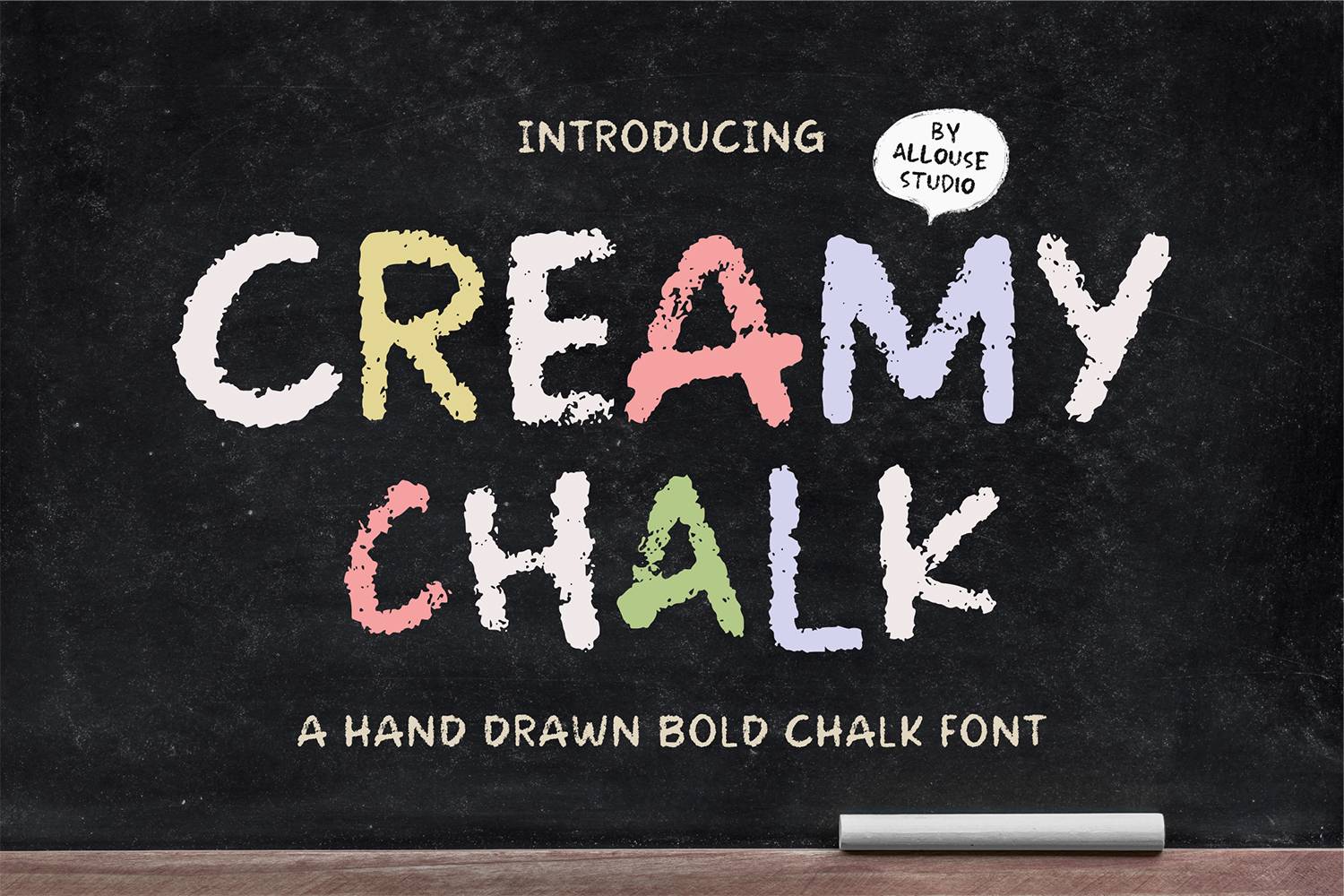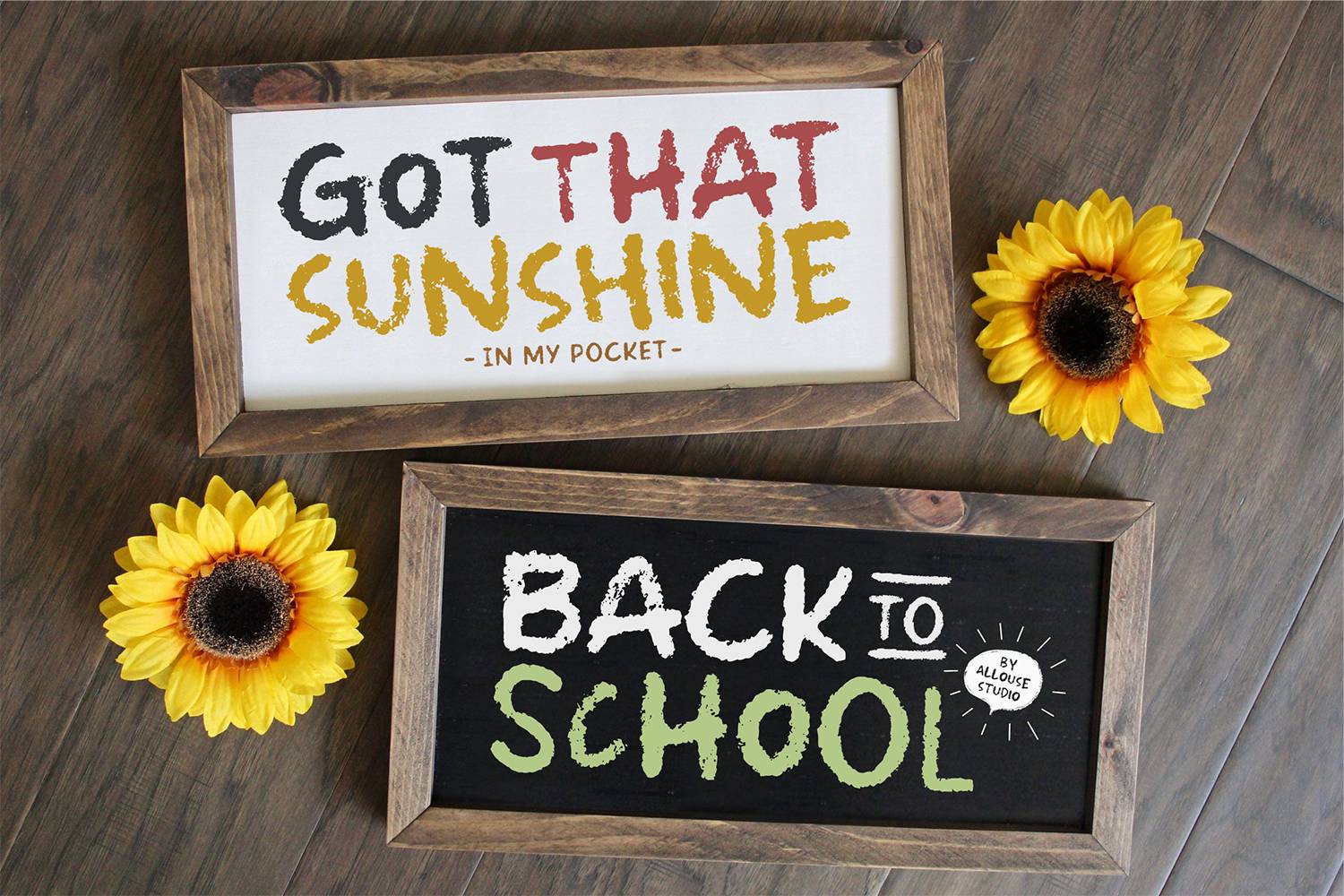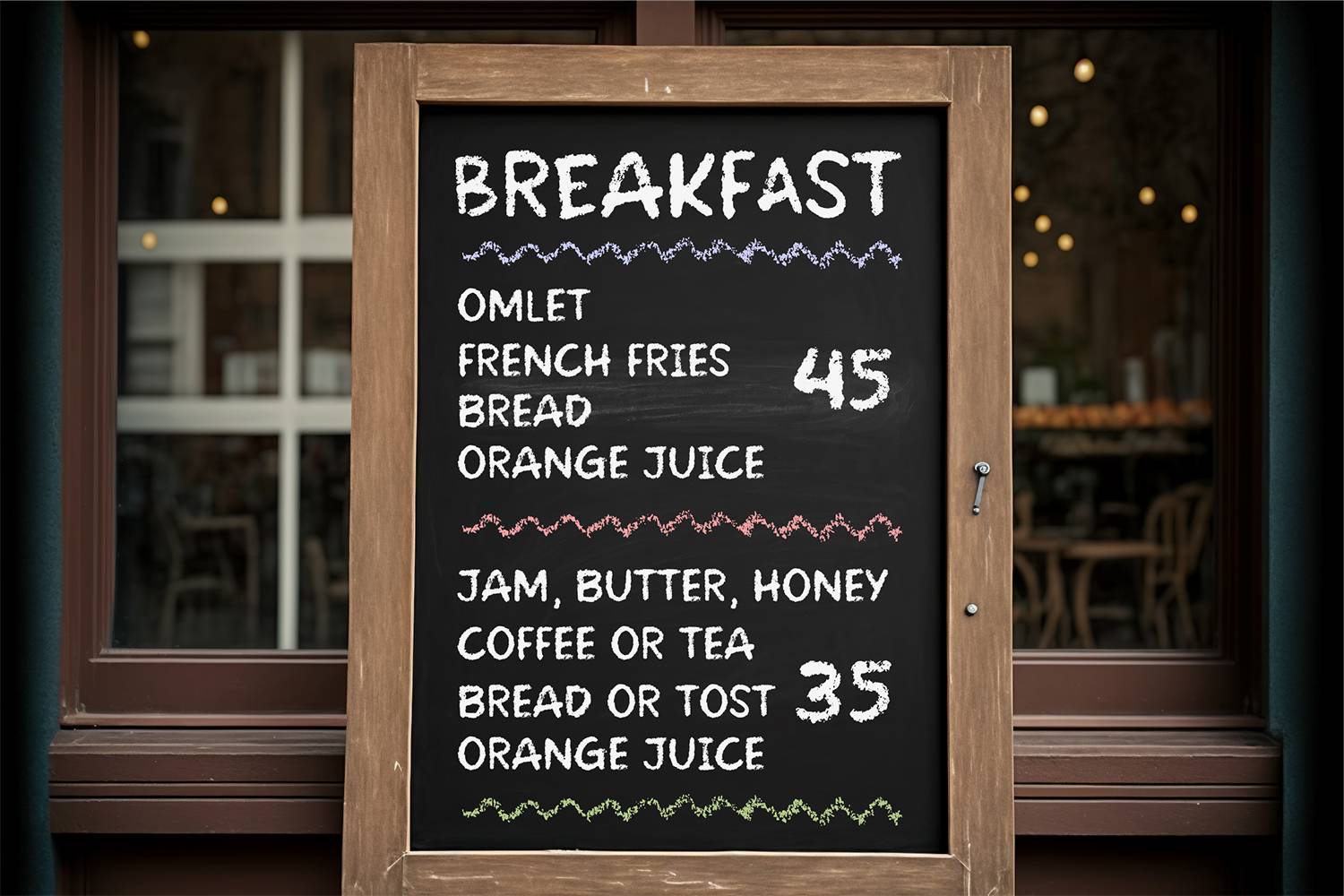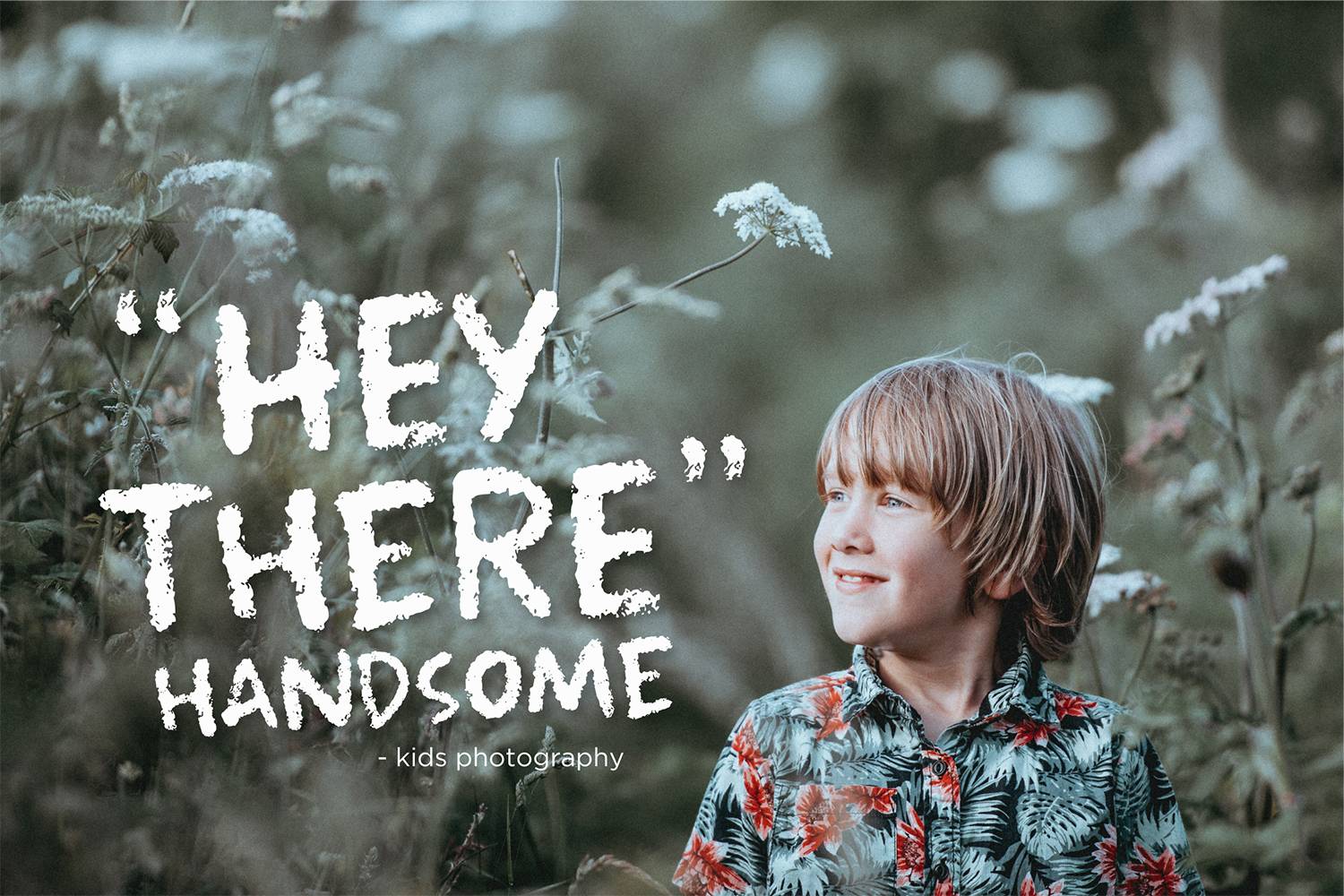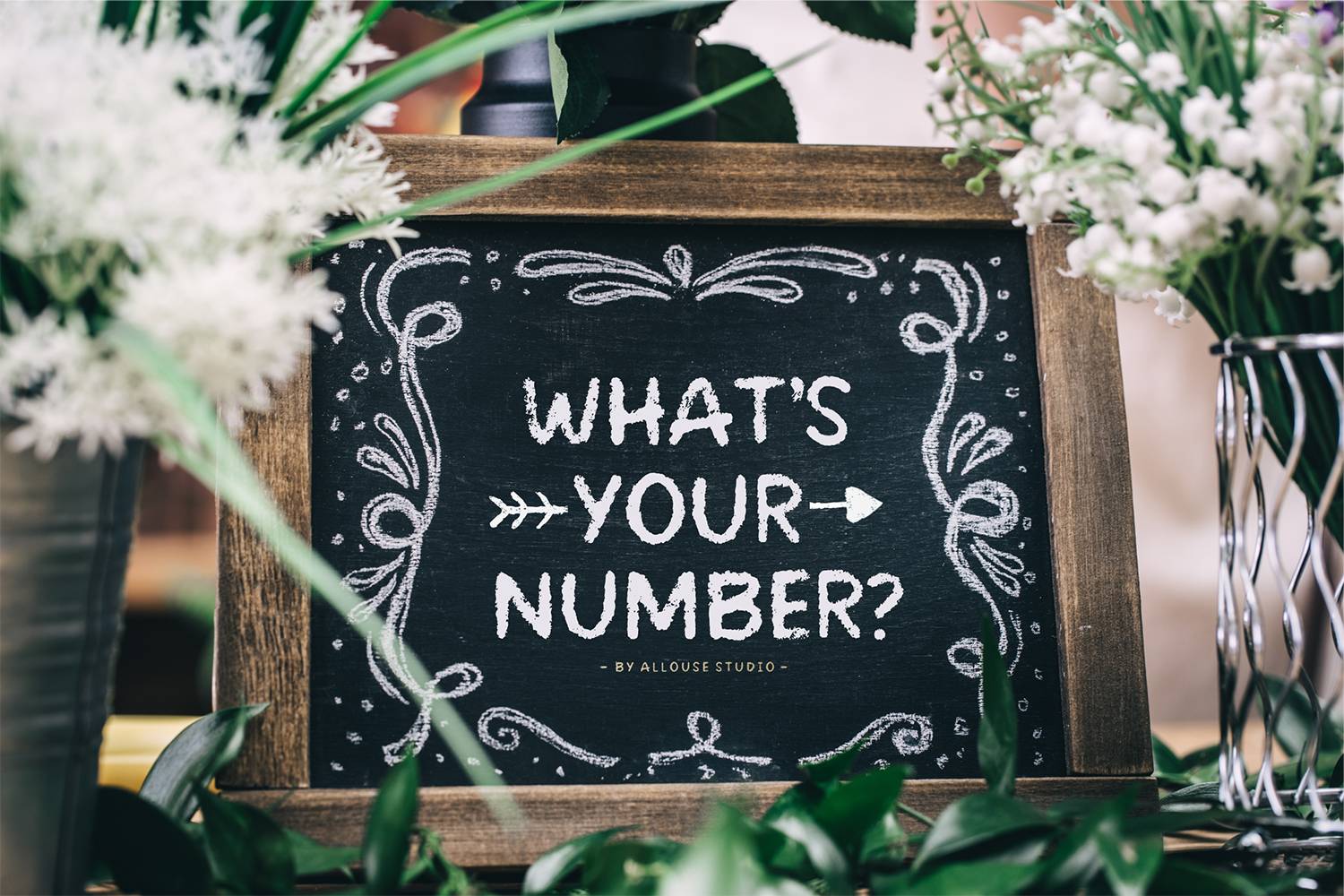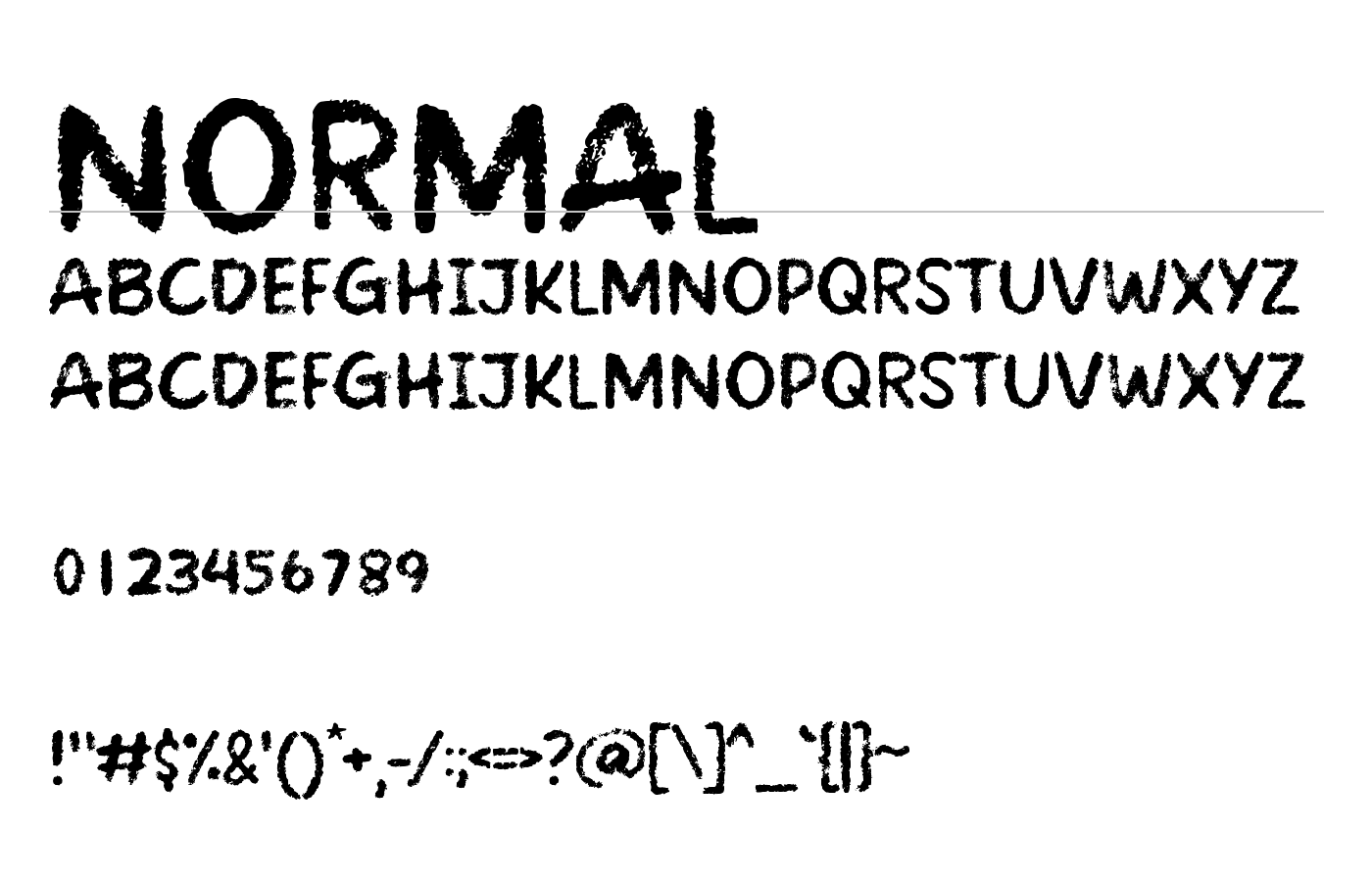
Creamy Chalk Font is a bold, playful sans serif typeface with a textured, hand-drawn chalk effect that gives it a casual and approachable feel. Its irregular edges and high x-height make it highly readable while adding a fun, creative vibe, perfect for informal designs, children's materials, or artistic branding. This font works best for headlines, posters, and packaging where a friendly, handcrafted touch is desired.
Creamy Chalk Font
About Creamy Chalk Font